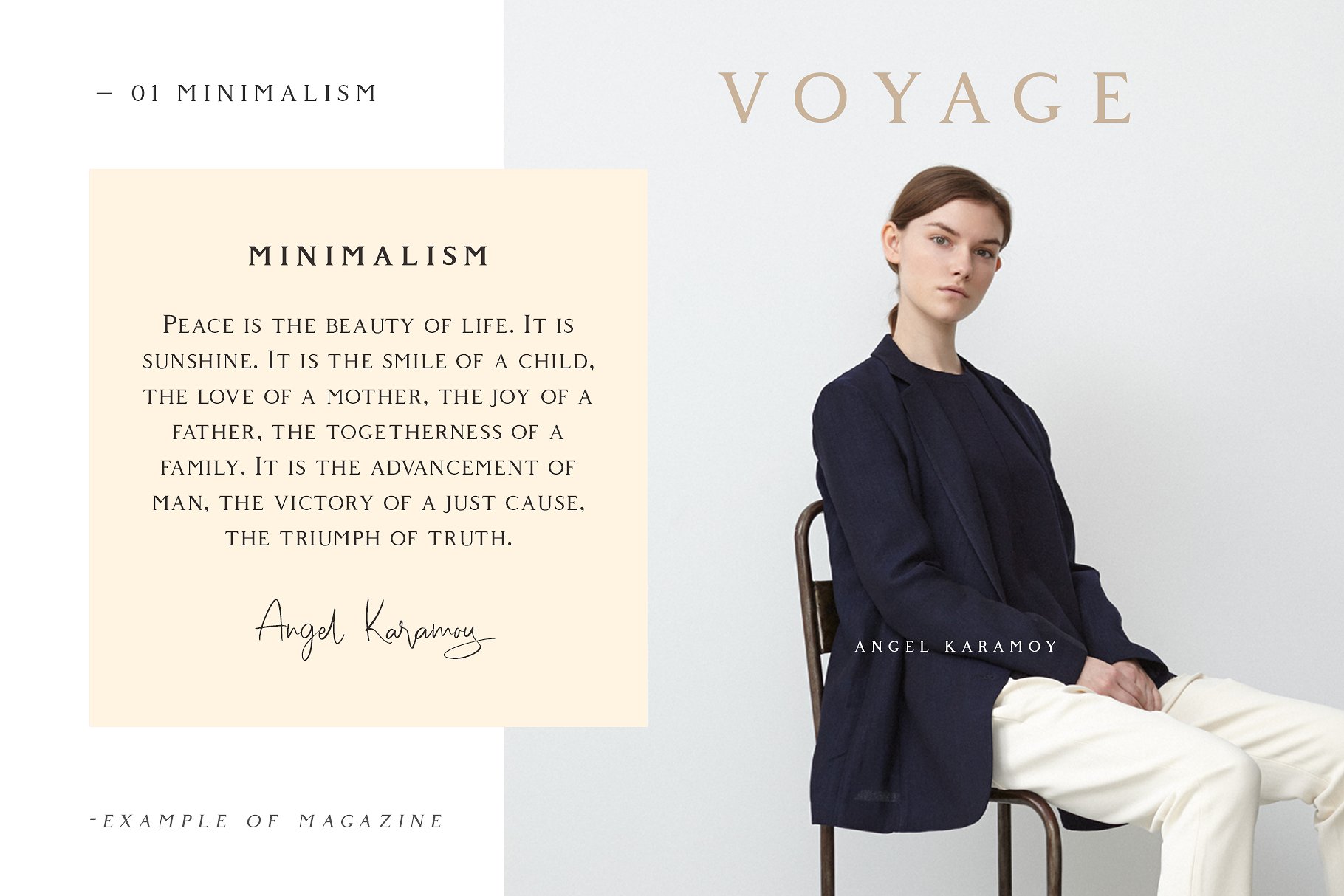
Giveny Serif Font
This is a modern contemporary serif typeface that embodies simple geometric shapes combined with strong typographical foundations. It will fit all your design projects. Introducing Giveny Font. Giveny – Classy Serif Font is a Classy serif font whose design refers us to the style of transitional serifs. The distinctive features of Giveny – Classy Serif Font are the relatively low contrast of strokes, the slightly squarish shapes of round characters and the emphasized businesslike nature. Giveny Serif Font has been crafted from scratch with a structural logic of its own: a fusion of pure geometry and optical balance. By combining a variety of styles Giveny – Classy Serif Font is suitable for Logo, greeting cards, quotes, posters, branding, name card, stationary, design title, blog header, art quote, typography.